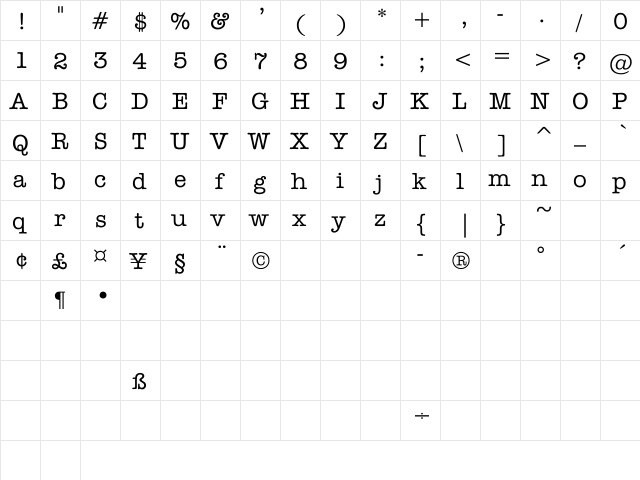
Dateline Regular
Design Context for Dateline Typeface
Dateline offers clean, dependable letterforms without strong stylistic allegiance, making it a practical choice for designers who need flexibility.